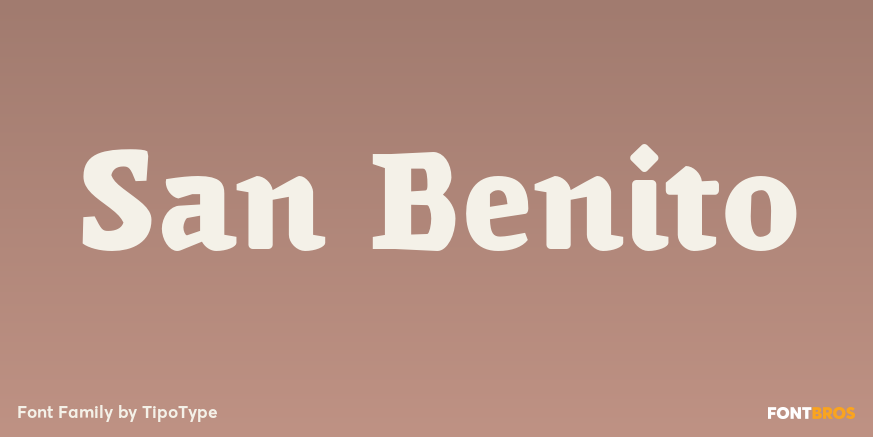
HomeFont BrosHistoricalSan Benito Historical San Benito FacebookTwitterPinterestWhatsApp 1 of 1 About San Benito is ideal for powerful titles, specific and direct. It has features of seriousness; tradition combines sobriety and personality.  DOWNLOAD NOW 91 0 People also explored Avestrava Outermost Font Royal Hamilton Font Oxydest Font Divaloves Font Arsyifa Arsyila Font Warmheart Font North Pole Font Jacque Font Better Summer Script Font Haunted Font Andrea Font Modis Font Tags12349SSan Benito Font Previous articleTaleshaNext articleWheaton LEAVE A REPLY Cancel reply Comment: Please enter your comment! Name:* Please enter your name here Email:* You have entered an incorrect email address! Please enter your email address here Website: Save my name, email, and website in this browser for the next time I comment. Unlock Endless Creativity with the FREE September Clipart Huge Bundle (Valued at $700!) Personal Use Free Anjhay Personal Use Free Read more The Kingdom Personal Use Free Read more Pompom Personal Use Free Read more Bellarin Personal Use Free Read more BLOG Using Fonts in Digital Marketing: Tips to Strengthen Your Brand Identity In the realm of digital marketing, every visual element plays a crucial role in shaping a brand's identity, and fonts are no exception. The... Free Fonts Risk: Why Free Fonts Can Be Dangerous for Designers Top 7 Google Fonts Alternatives for Faster and Privacy-Friendly Web Design (2025) To increase your work productivity, choose the most readable fonts.